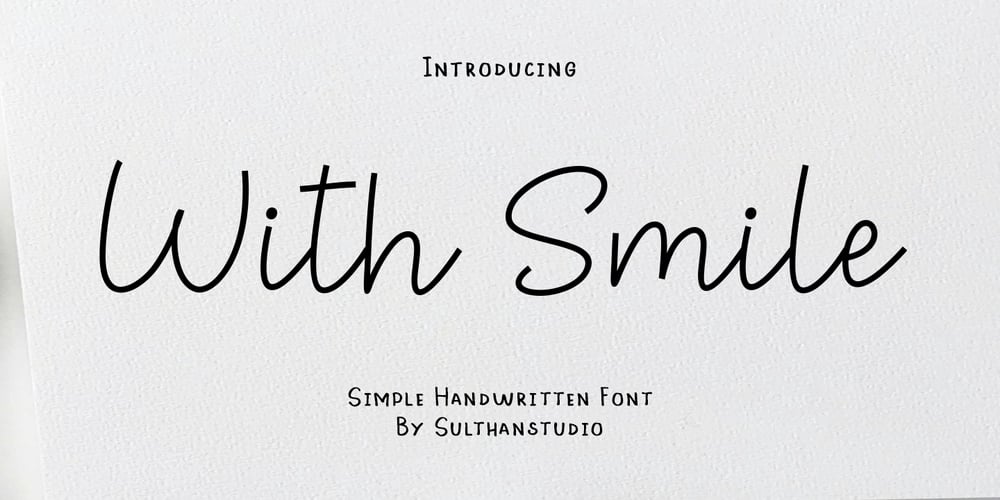
With smile
With smile font
With smile Font Family was designed by Nasrullah and published by Sulthan Studio. With smile contains 1 styles and family package options. With smileThis handwritten font is as the name suggests, made with joy and also very simple which is very suitable for every job you do. This font is equipped with uppercase and lowercase letters, numbers, punctuation, language support, front and back swashes for lowercase letters and also heart swashes that can be connected.